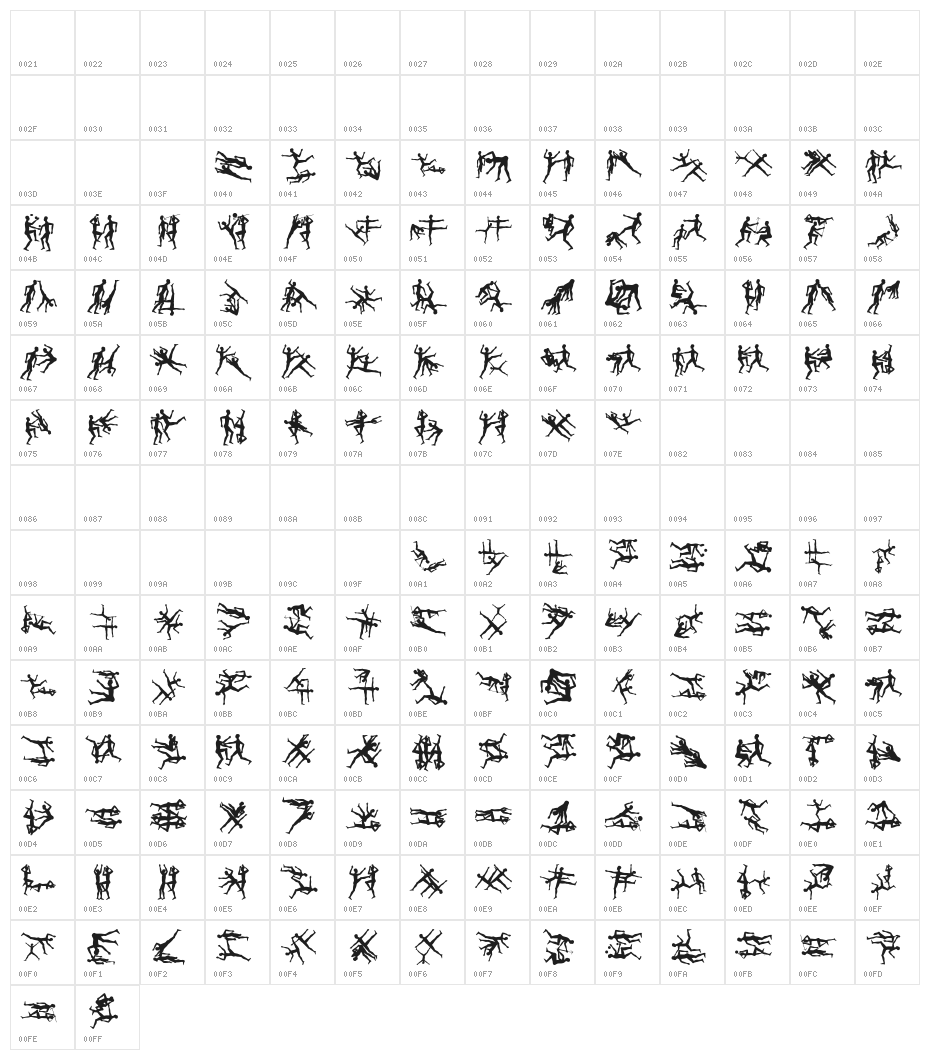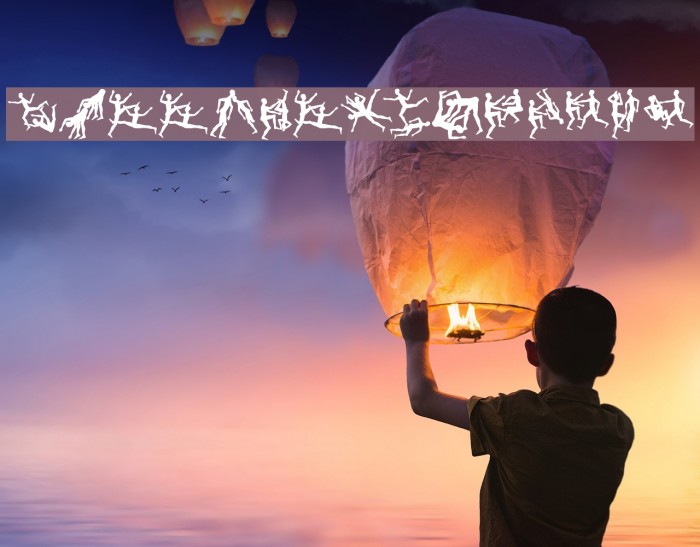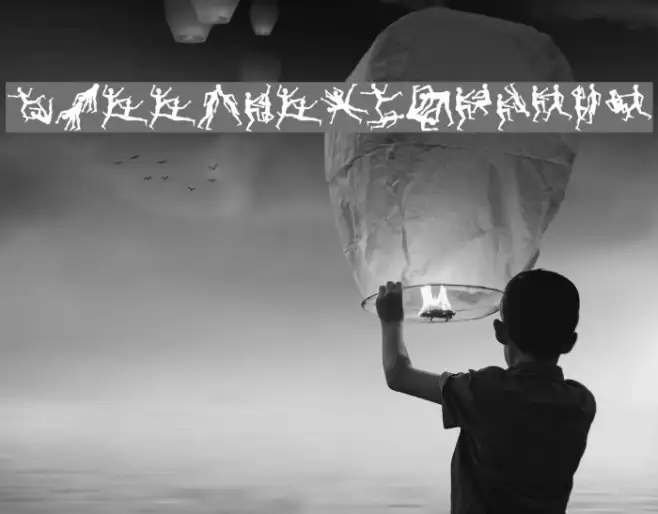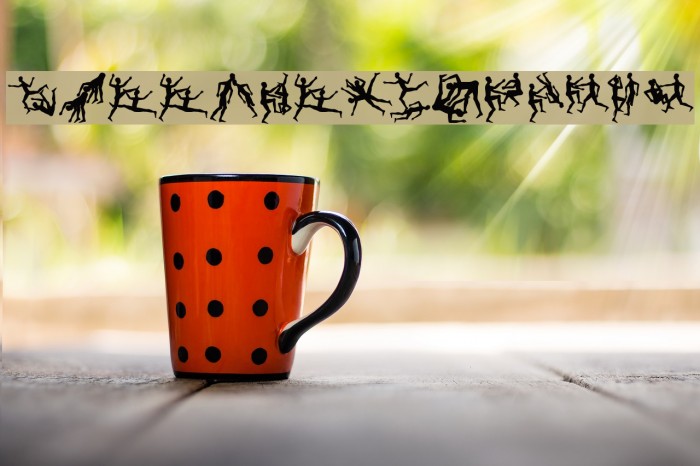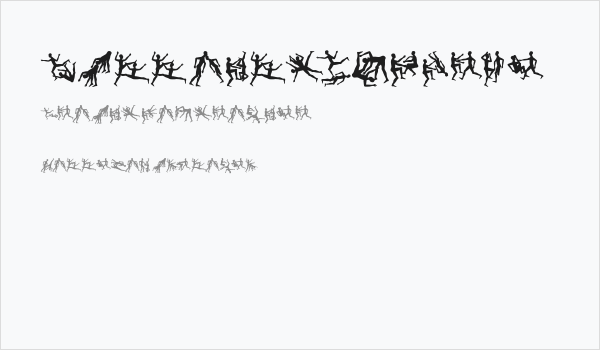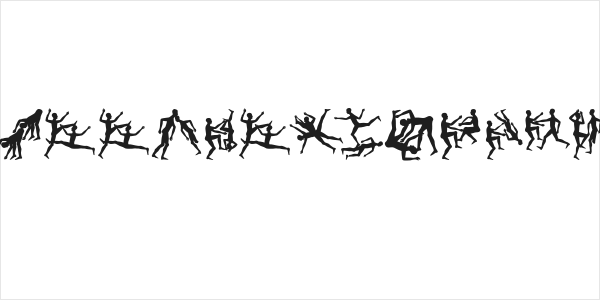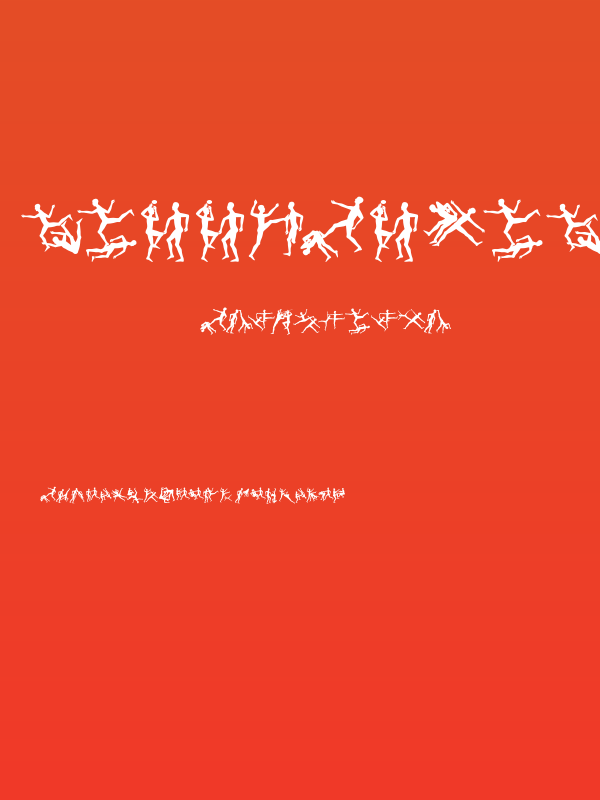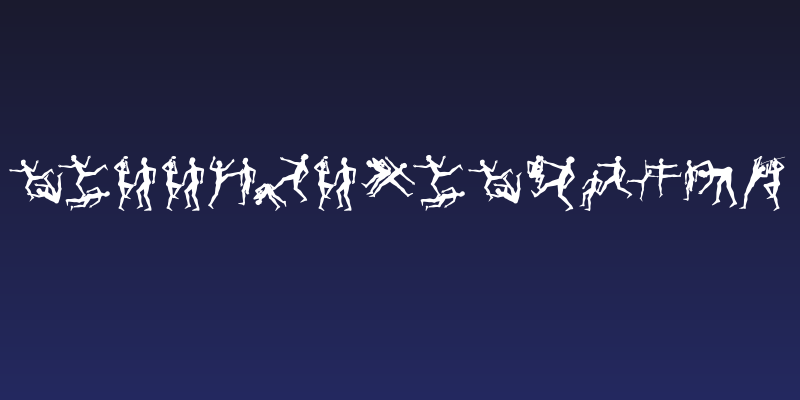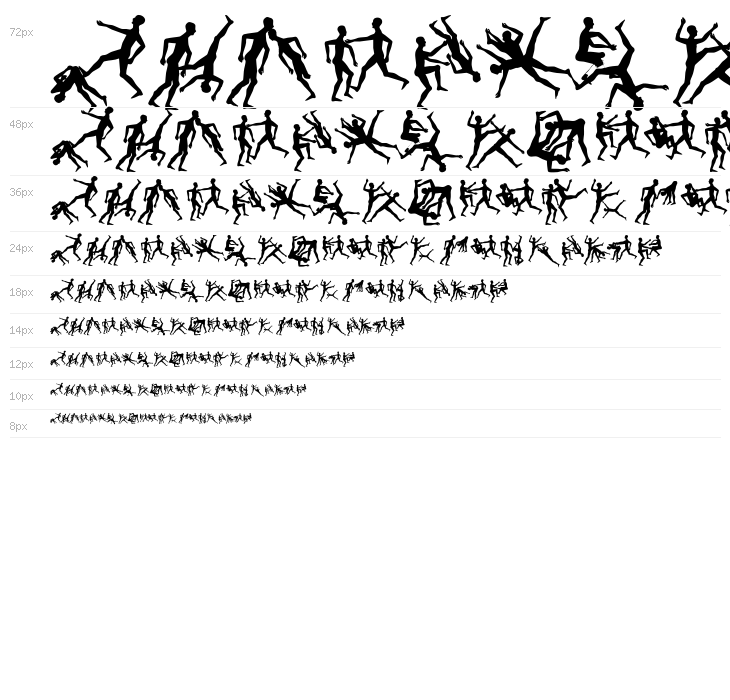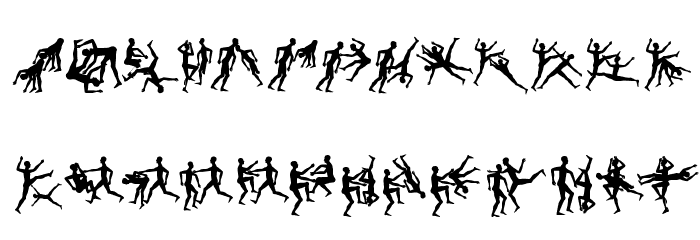
BalletliAbsurdo Font
BalletliAbsurdo Description
A highly decorative and playful font composed of abstract human figures in dynamic, dance-like poses forming each character. The silhouettes are bold and expressive, creating a sense of movement and energy throughout the alphabet and symbols.
| Overall Style | Decorative, Artistic, Playful |
| Use Case | Headlines, Logos, Posters, Artistic titles |
| Proposed Projects | Posters, event invitations, dance or theater branding, artistic projects, album covers, creative advertising. |